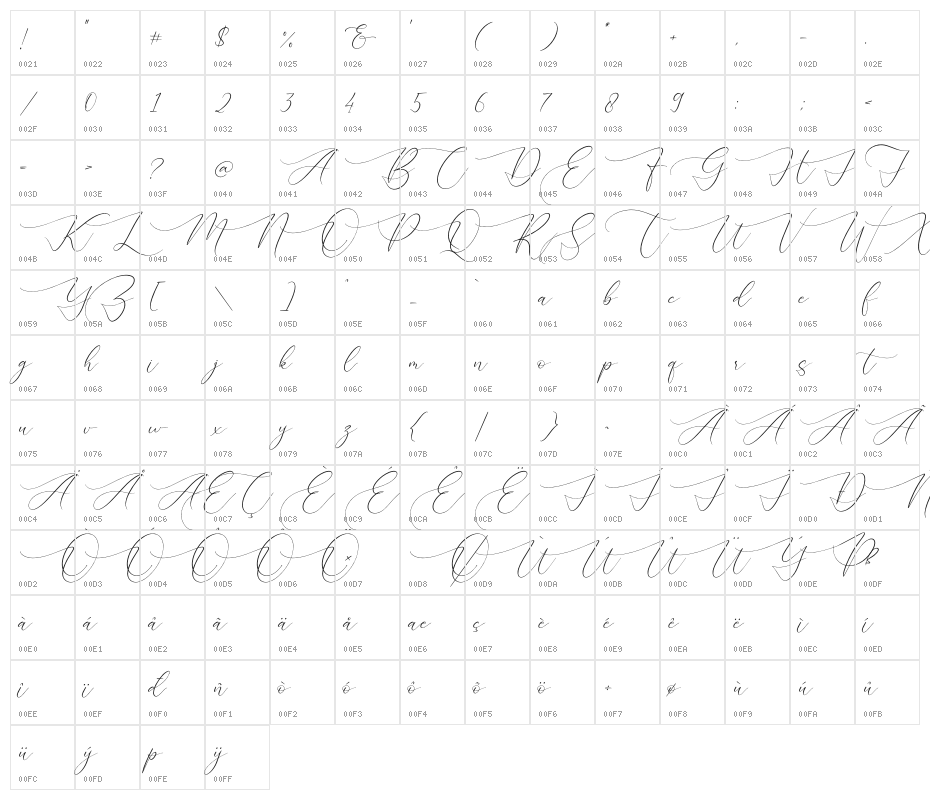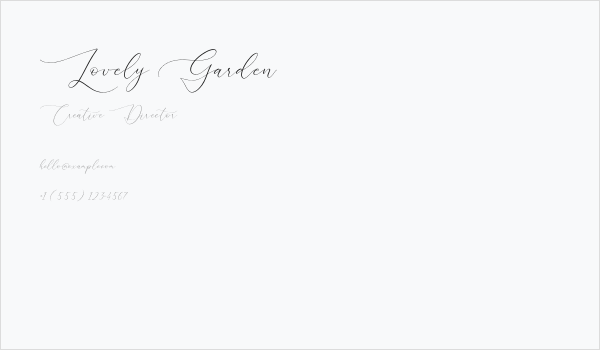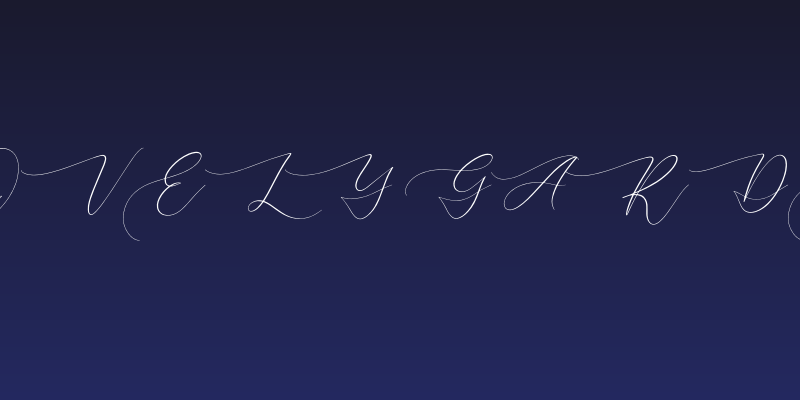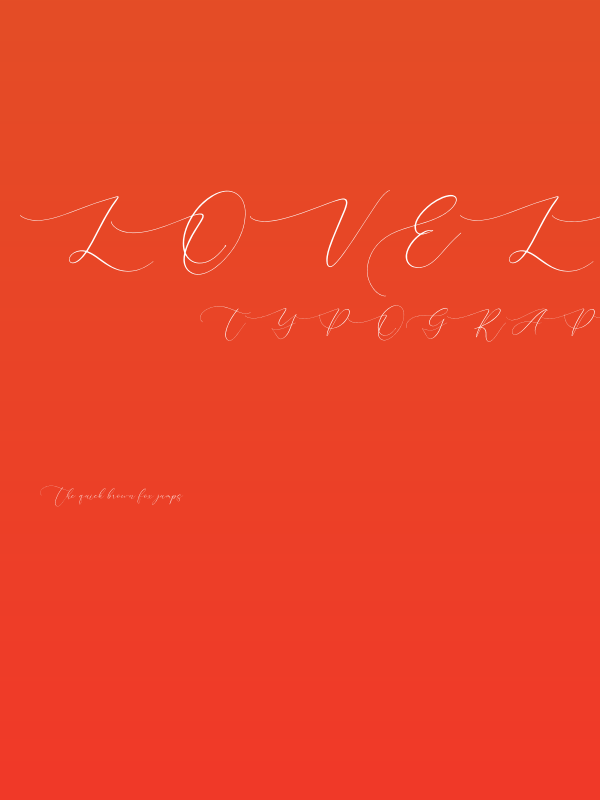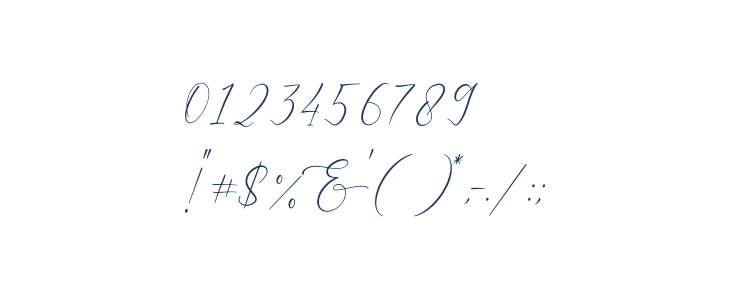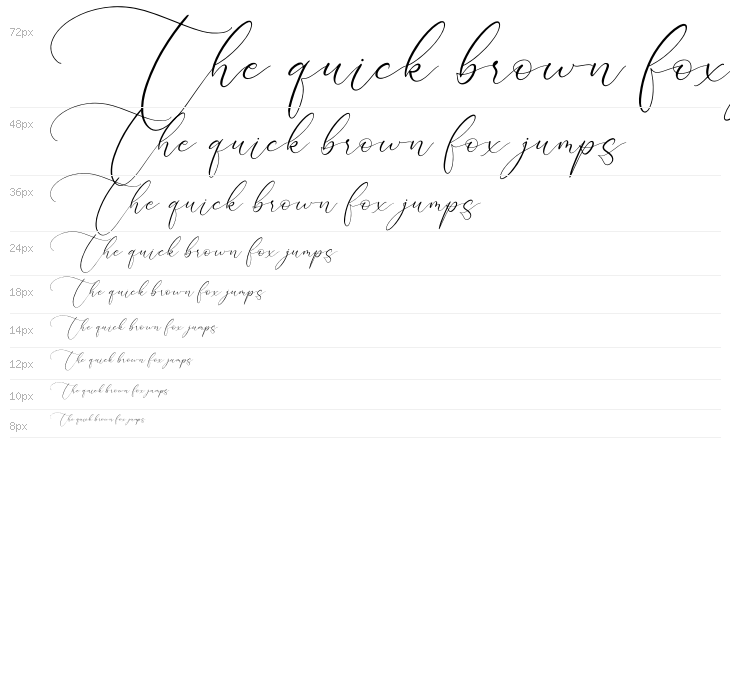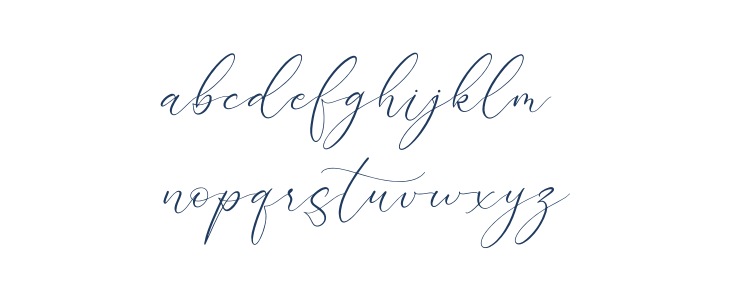
Lovely Garden Font
Lovely Garden Description
This elegant script font features a delicate and flowing design, characterized by its graceful, looping strokes and a sense of fluidity. The uppercase letters are intricately designed with a consistent slant, while the lowercase letters maintain a harmonious balance with their slightly exaggerated ascenders and descenders. The numerals and special characters complement the overall aesthetic, adding a touch of sophistication. The font's thin lines and high contrast between thick and thin strokes give it a refined and stylish appearance, making it ideal for projects that require a touch of elegance and charm.
| Proposed Projects | Ideal for wedding invitations, elegant branding, greeting cards, and upscale packaging. |